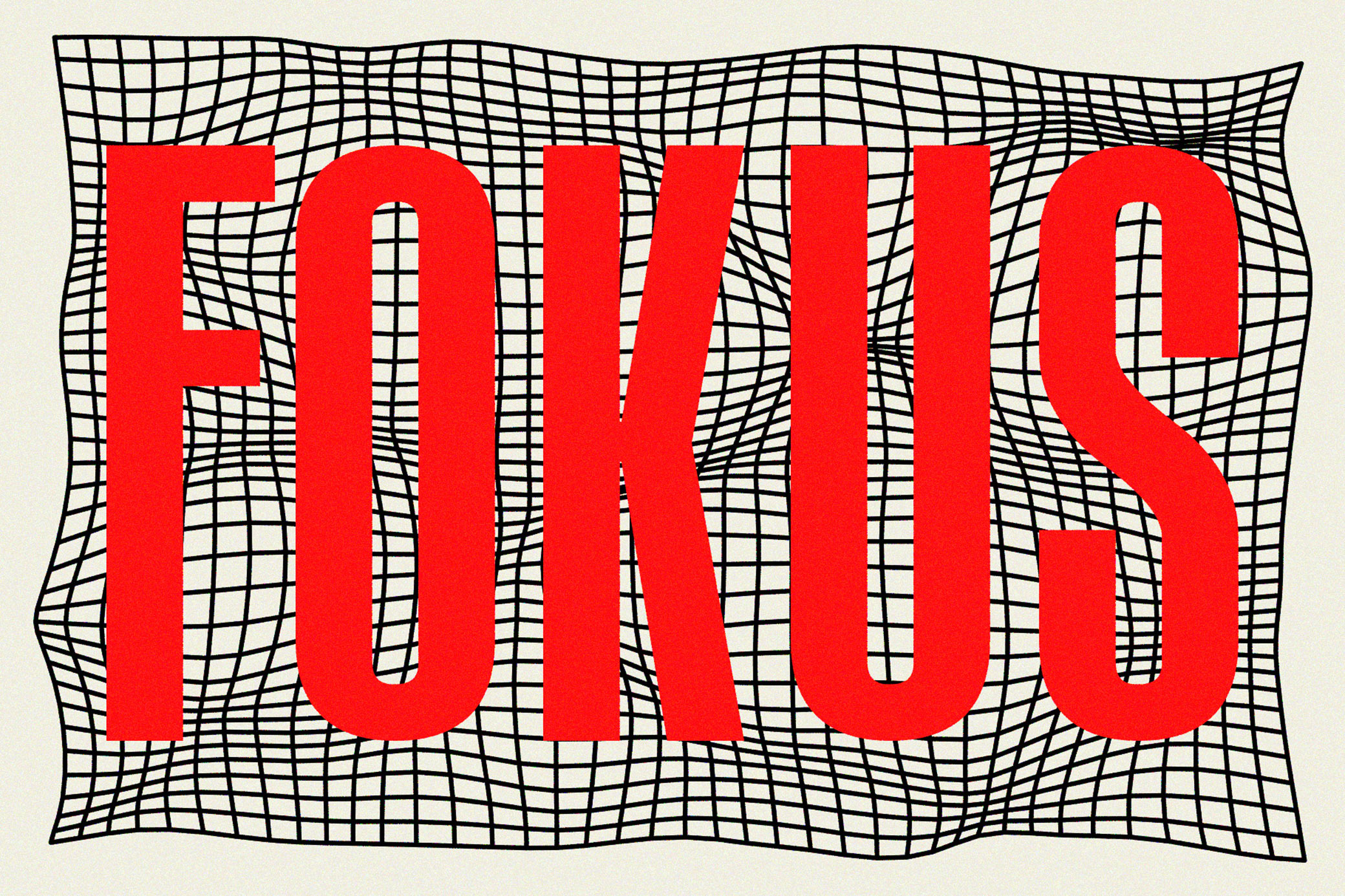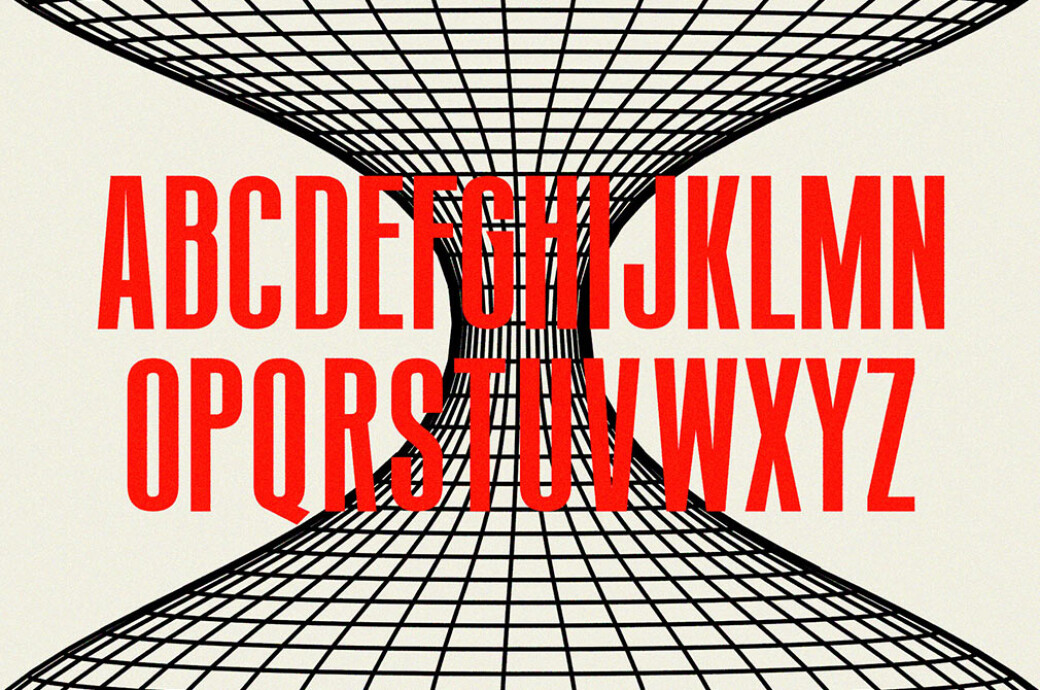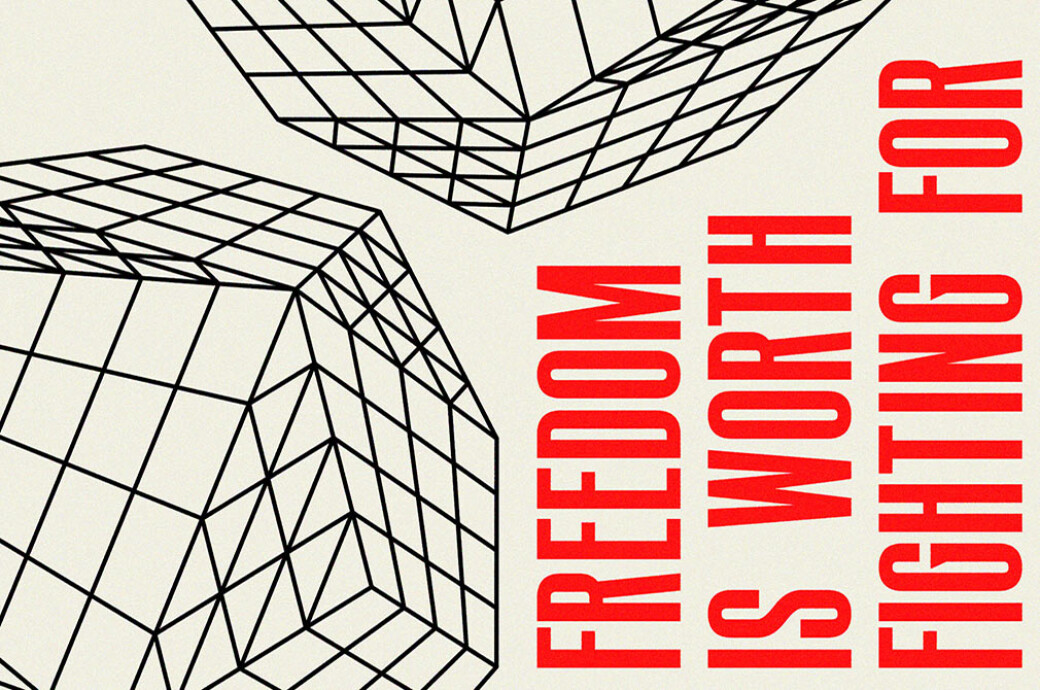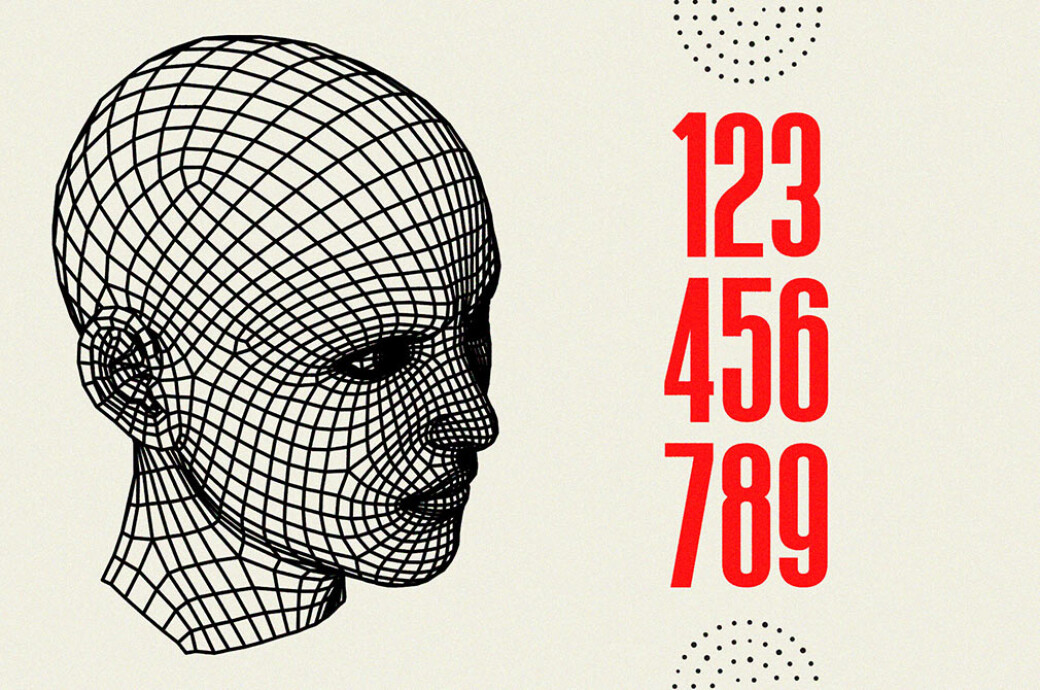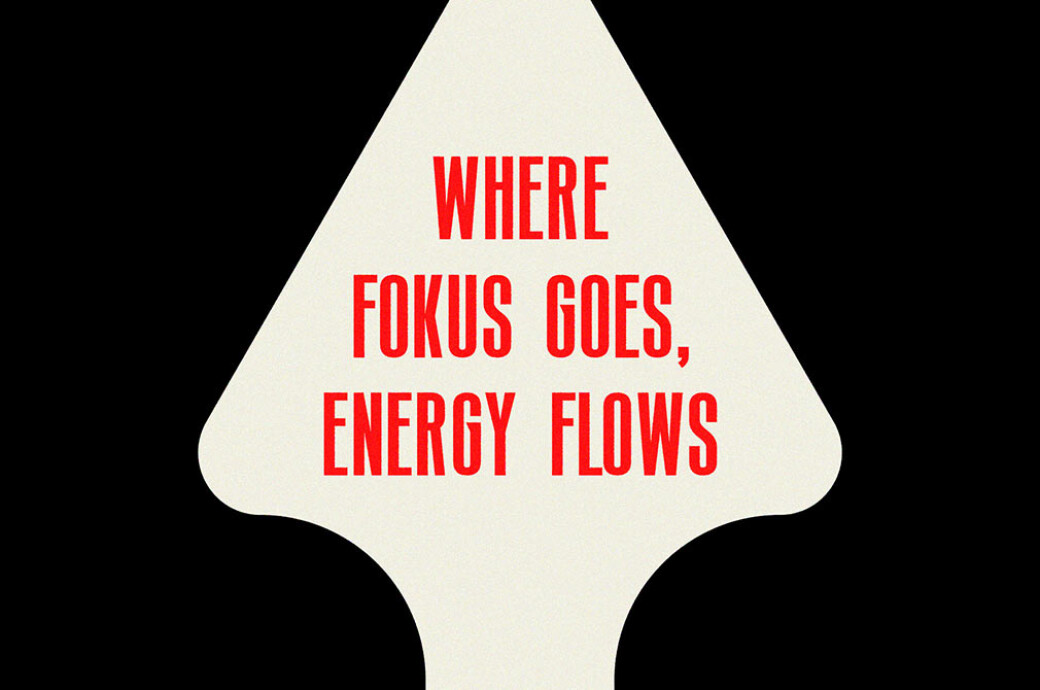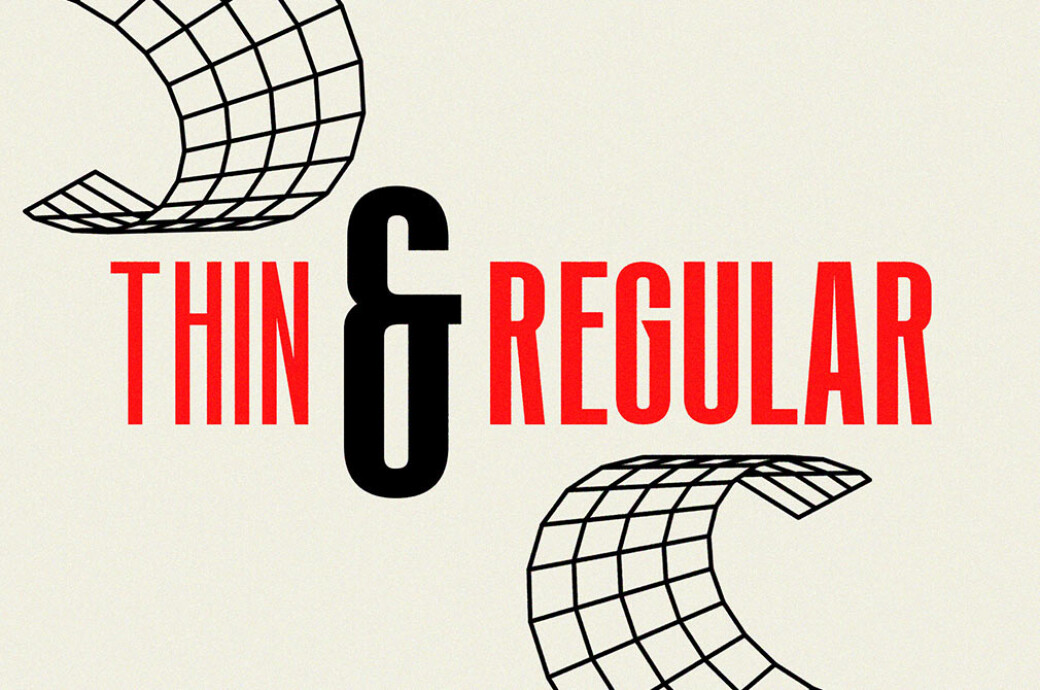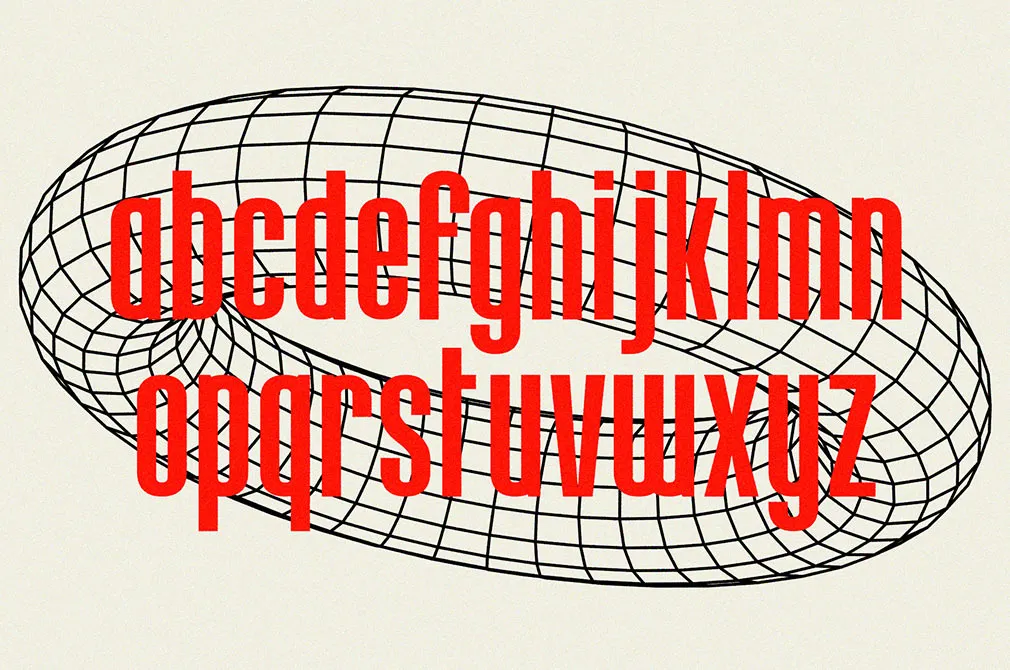
Fokus Condensed Sans Font
Futuristic and modern at the same time — what a useful combination to be encapsulated in one sans serif font! Paired with robust graphic elements, it can bend minds and conquer hearts.Fokus was inspired by mid-century print design. The height of this condensed typeface automatically draws attention and can be utilized to create beautiful headlines, logos, quotes, posters, social media, large print formats, and more. You can easily pair it with scripts and bold sans serif fonts. Fokus comes in two versions, regular and thin, which makes it super versatile and fun to experiment with.The product is compatible with Adobe Photoshop Creative Cloud (and newer).